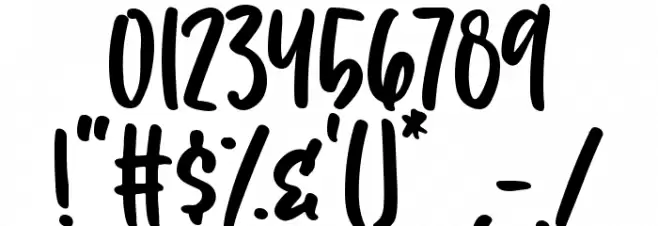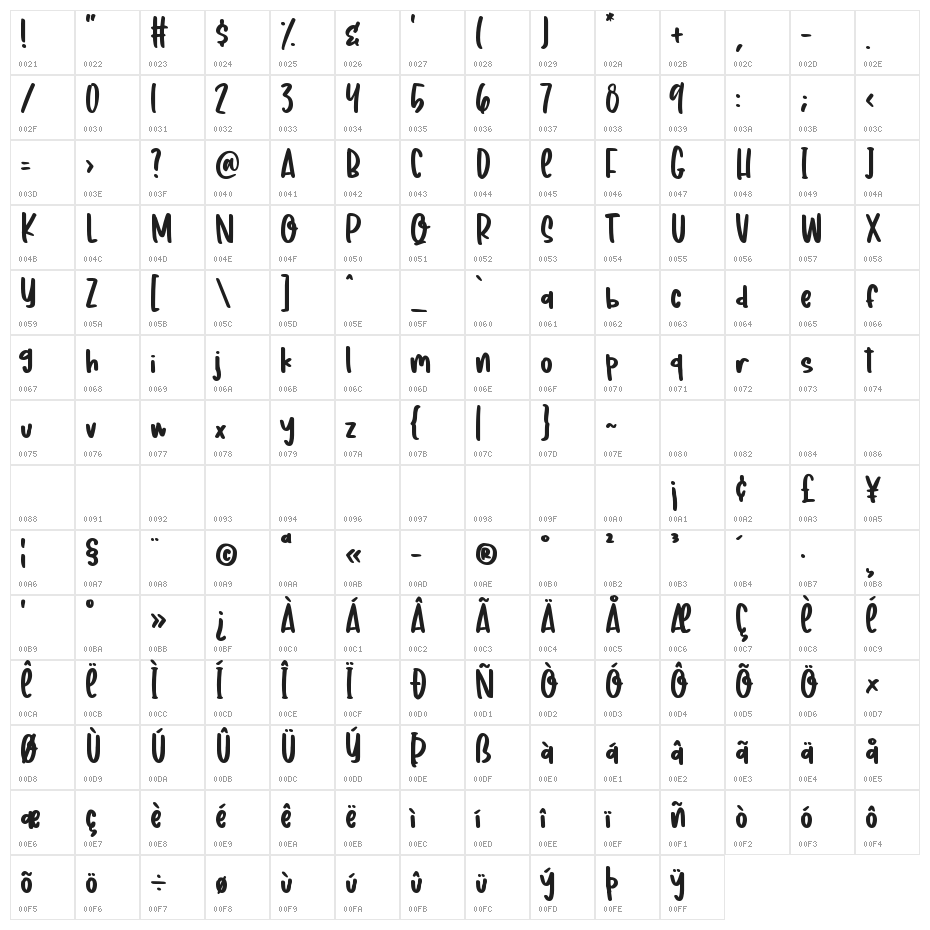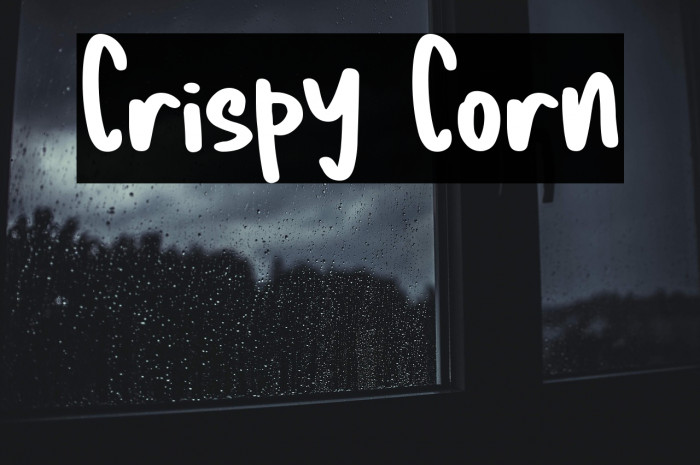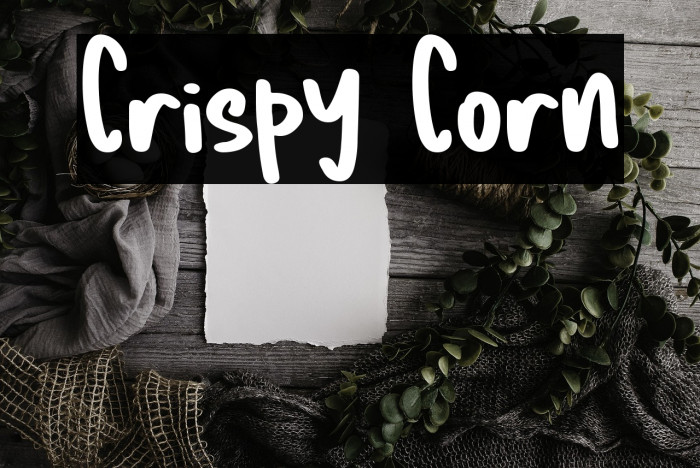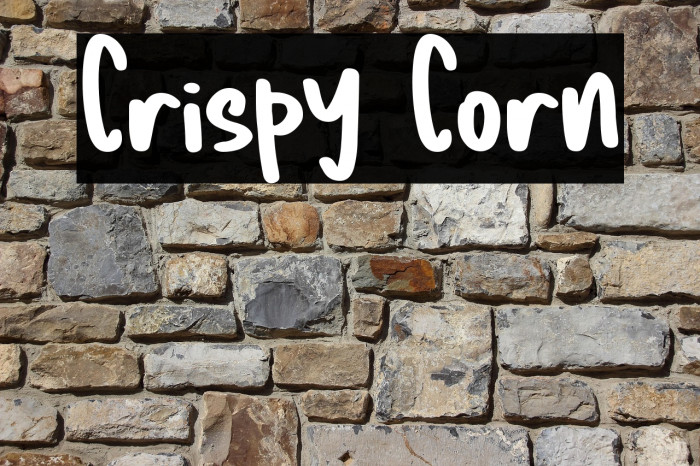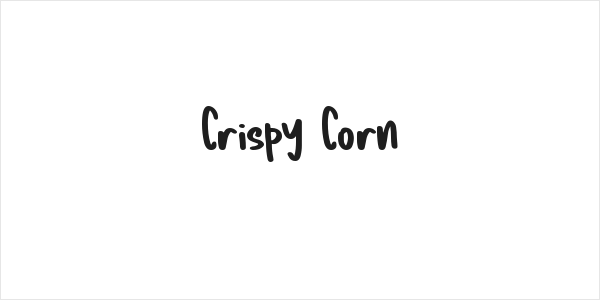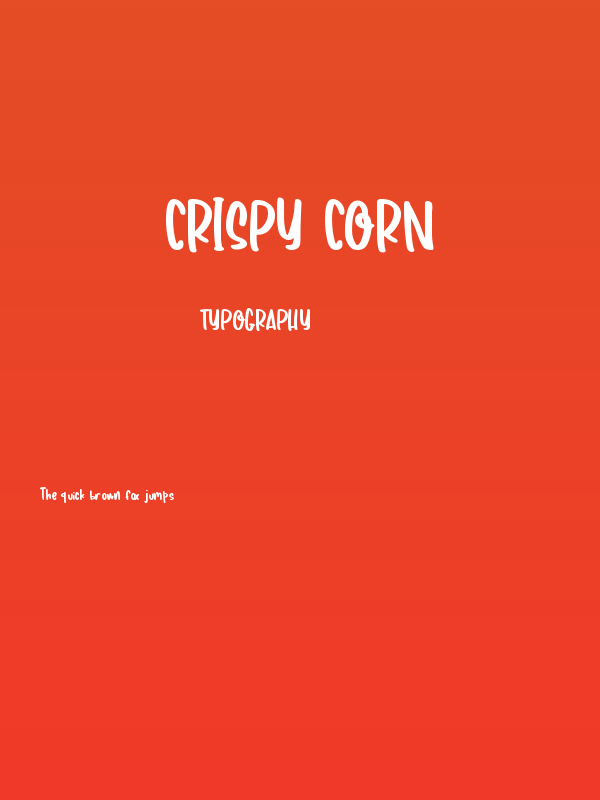
Crispy Corn Font
Crispy Corn Description
This font features a playful and bold handwritten style, characterized by its thick strokes and rounded edges. The letters are slightly slanted, giving a casual and friendly appearance. The uppercase and lowercase letters maintain a consistent style, with a slight variation in height and width that adds to the font's charm. The numerals and special characters are equally bold and maintain the same playful aesthetic, making them easily readable. This font is perfect for projects that require a fun and approachable look, such as children's books, posters, or casual branding.